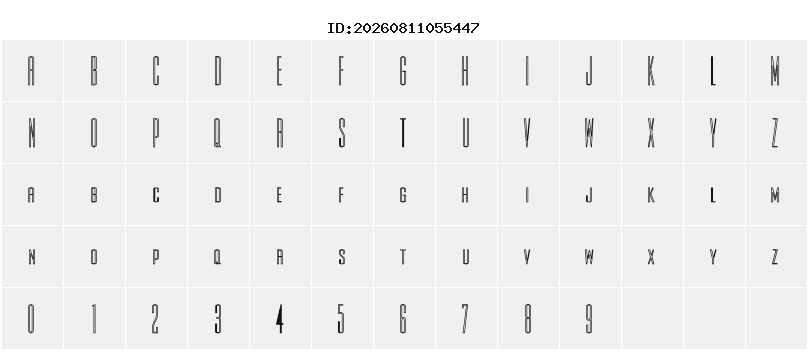
• Font Name: Rothman Hollow
About Rothman Hollow.ttf
Rothman Hollow.ttf is a modern, elegant sans-serif font designed for ultimate readability and visual harmony. Perfect for branding, headlines, web design, and print materials.